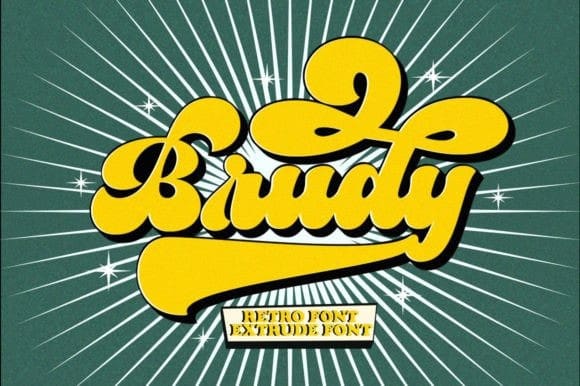
Brudy Retro Font
Brudy Retro Font, is an urban retro font with the style of logotype lettering. It was created to help you design a logotype or lettering style for your Brand or your clients.